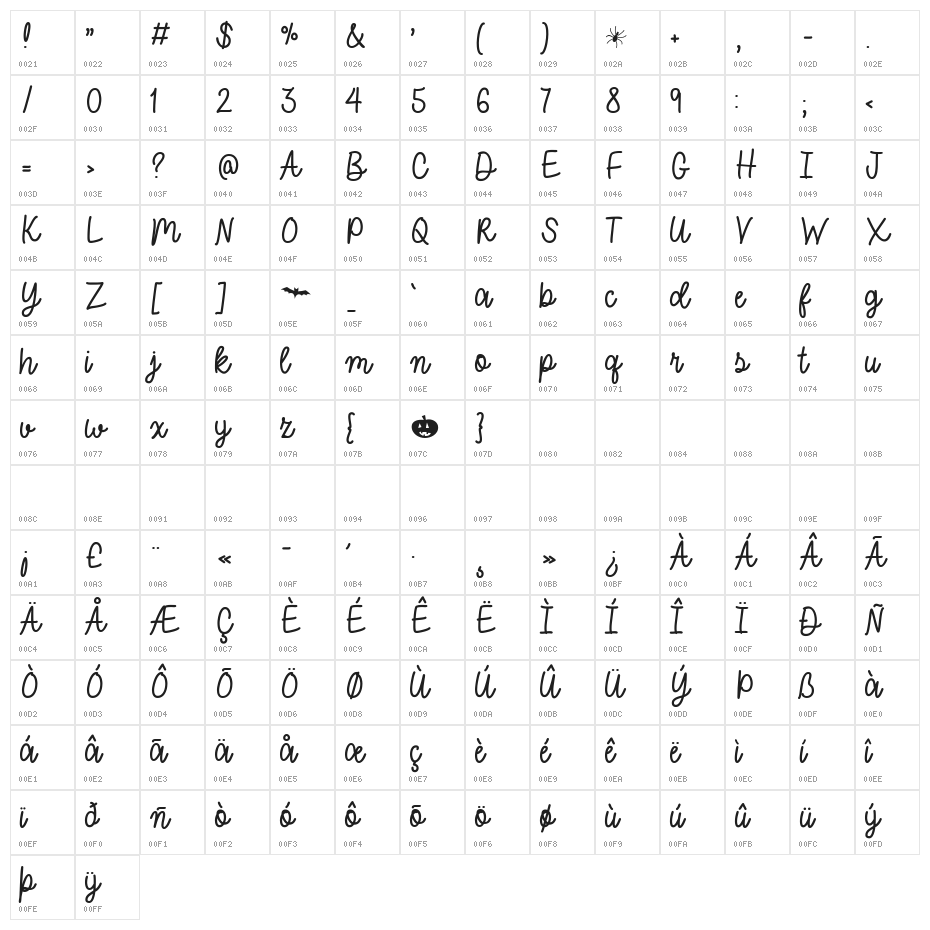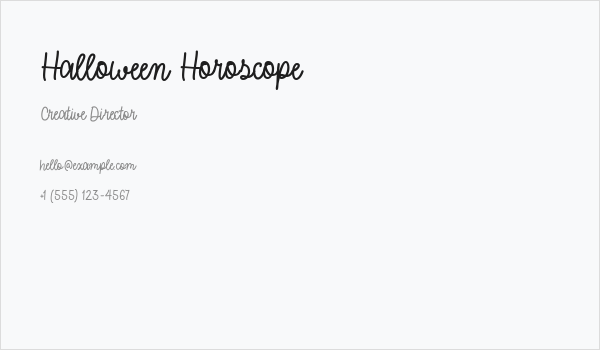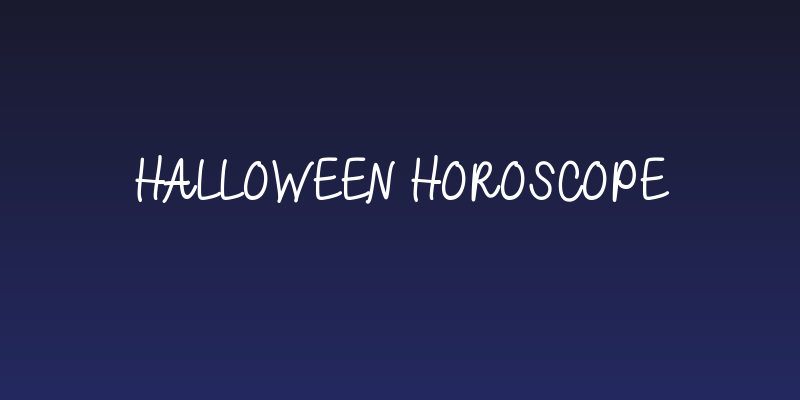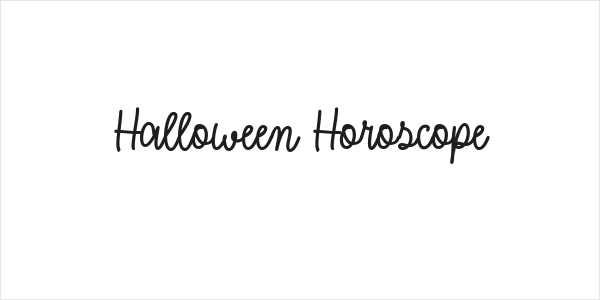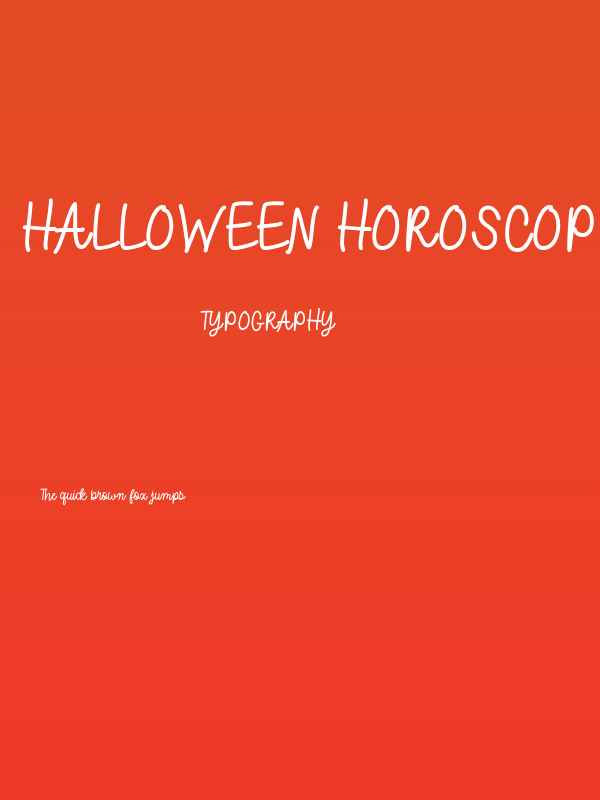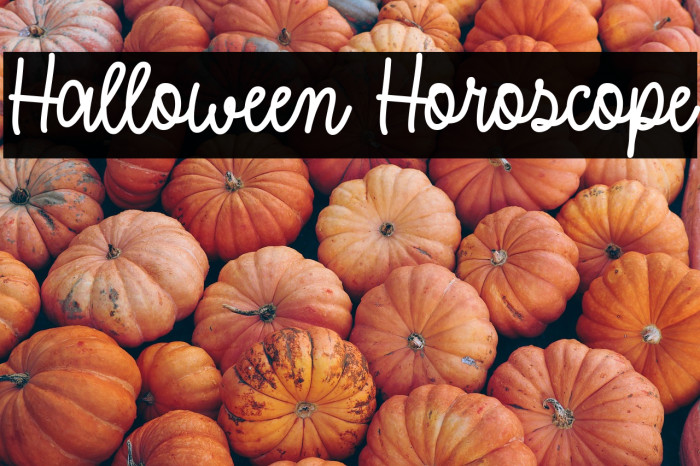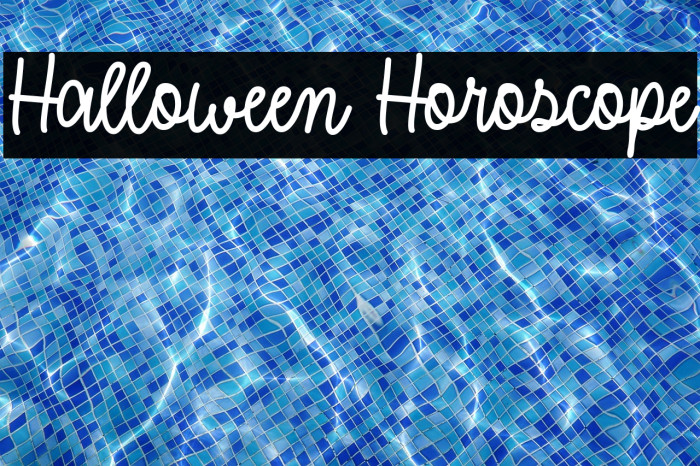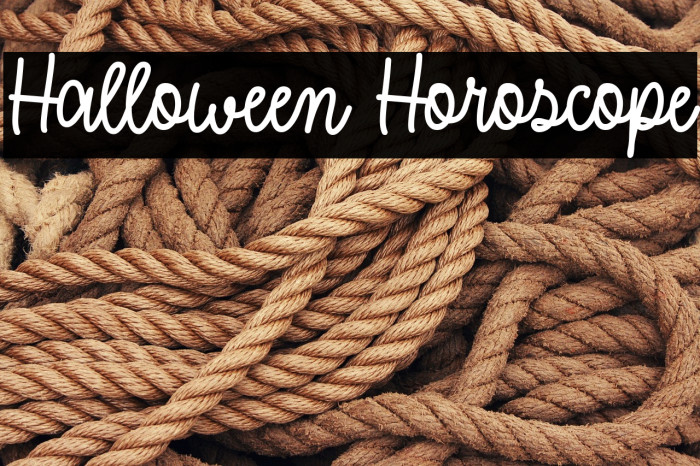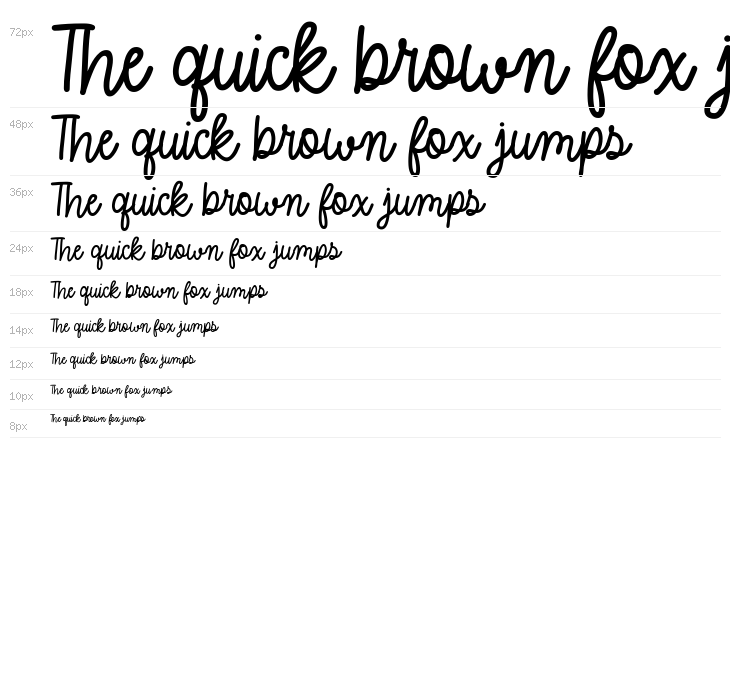
Halloween Horoscope Font
Halloween Horoscope Description
This playful and whimsical font features a handwritten style with a casual and friendly appearance. The letters are slightly slanted, giving it a dynamic and lively feel. The strokes are consistent in thickness, providing a uniform look across all characters. The uppercase letters are bold and prominent, while the lowercase letters maintain a smooth and flowing script-like quality. Numbers and special characters are crafted with the same playful touch, making them easily readable and visually appealing. This font is perfect for projects that require a personal and informal touch, such as greeting cards, invitations, or playful branding materials.
| Proposed Projects | Greeting cards, invitations, playful branding, children's books. |